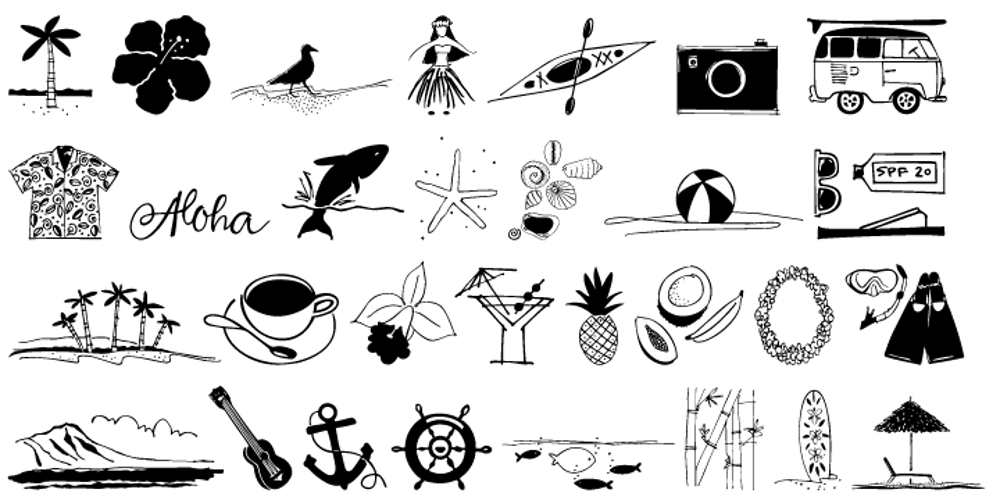
Waikiki Doodles Font Family was designed by published by Outside the Line. Waikiki Doodles contains 1 styles and family package options. Take a little trip to the land of sun and sand with Waikiki Doodles. 30 resort drawings that can be used for Waikiki and other warm weather destinations. From generic tourist icons like palm trees and a camera to the specific like Diamond Head and hula dancer. 29 drawings and the word Aloha lettered in script.